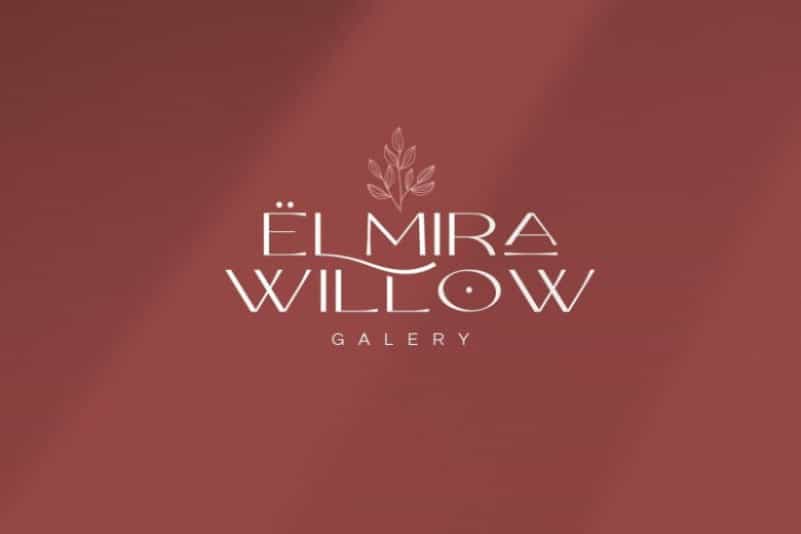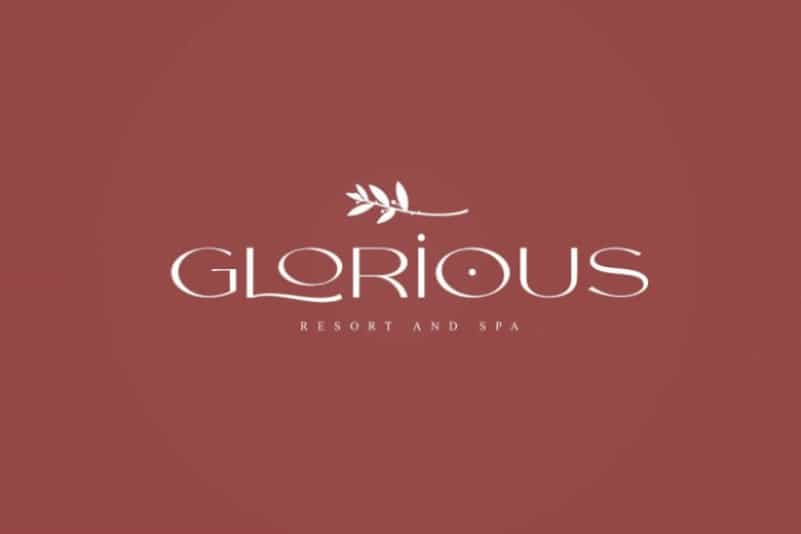
Rollgates Victoria, a Sans Serif with elegance, has different options for swashes to intensify your logotype or lettering and make it more beautiful. Sans serif font is special with its clean and classy look; it has swirls, swashes that make this font a real one-of-a-kind!